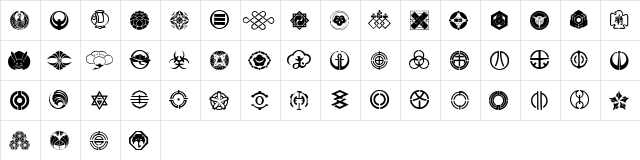
Motif Regular Font Preview
Motif Regular
Design Context for Motif Typeface
Motif is a composed and adaptable typeface that performs quietly and consistently across a wide range of design contexts.